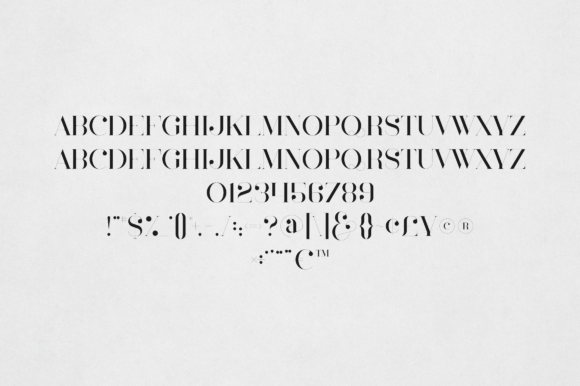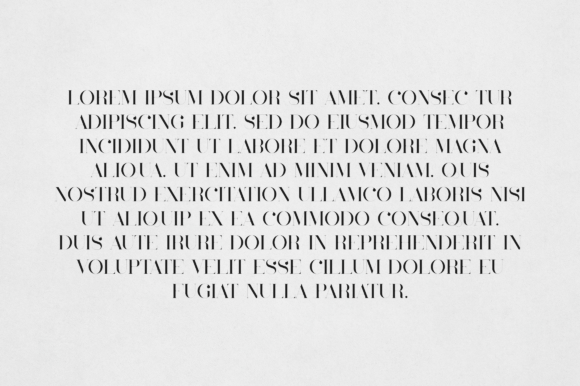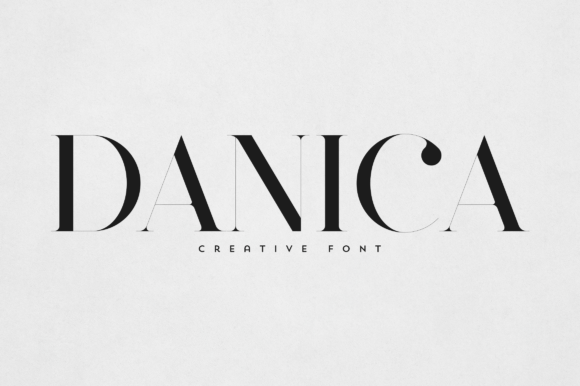
Discover the Elegance of Danica Font: Elevate Your Designs with Versatility and Style
In the world of typography, a font can make or break the visual appeal of a design. For designers and crafters looking to add a touch of elegance and uniqueness to their projects, Danica Font stands out as an exceptional choice. This comprehensive guide will explore the features, benefits, and applications of Danica Font, showcasing why it’s an indispensable tool in your typography arsenal.
What is Danica Font?
Danica Font is a sophisticated and versatile typeface designed to bring a distinctive charm to any project. Whether you’re working on a logo, branding materials, headlines, or plain text, Danica Font promises to enchant with its elegant style. Its design ensures that it can seamlessly integrate into various design contexts, making it a go-to font for creatives seeking to make a statement.
Key Features of Danica Font
- Elegant and Versatile: Danica Font boasts an elegant design that can adapt to a wide range of projects, from luxurious branding to stylish product packaging.
- Unique Typography: Its unique character set ensures that your designs stand out from the crowd, offering a refreshing alternative to more common fonts.
- High Readability: Despite its elegant and sometimes intricate design, Danica Font maintains high readability, making it suitable for both headlines and body text.
- Multi-Purpose: Danica Font is perfect for various applications, including branding projects, home-ware designs, product packaging, magazine headers, and as a stylish text overlay for background images.
Applications of Danica Font
The versatility of Danica Font makes it an excellent choice for a multitude of design projects. Here are some of the key areas where Danica Font can make a significant impact:
Branding and Logos
For branding and logos, first impressions are crucial. Danica Font, with its elegant and sophisticated appearance, can help create a memorable brand identity. Its unique style ensures that your logo stands out, making your brand more recognizable.
Product Packaging
Product packaging is an essential aspect of product design, influencing consumer purchasing decisions. Danica Font can add a touch of luxury and sophistication to your product packaging, making your products more appealing to potential customers.
Magazine Headers and Titles
In editorial design, capturing the reader’s attention is key. Danica Font, with its stylish and elegant design, is perfect for magazine headers and titles, adding a touch of class to any publication.
Home-Ware Designs
For home-ware designs, Danica Font offers a way to add a personal and elegant touch to products like cushions, mugs, and wall art. Its versatility ensures it can complement a variety of design styles.
Text Overlays for Background Images
Danica Font can also be used as a stylish text overlay for background images. Its elegant design ensures that it can complement a wide range of images without overpowering them, making it perfect for social media posts, banners, and more.
Why Choose Danica Font?
Choosing Danica Font for your design projects comes with numerous benefits. Its elegant and versatile design, combined with its readability and multi-purpose applications, make it an invaluable asset for designers and crafters. Danica Font is not just a typeface; it’s a design statement that can elevate your projects to new heights.
Danica Font is a game-changer in the world of typography, offering an elegant, versatile, and unique solution for designers and crafters looking to enhance their projects. With its wide range of applications, from branding and product packaging to editorial design and home-ware, Danica Font is a font that can truly make your typography unique. Embrace the elegance and versatility of Danica Font in your next design project and experience the difference it can make.